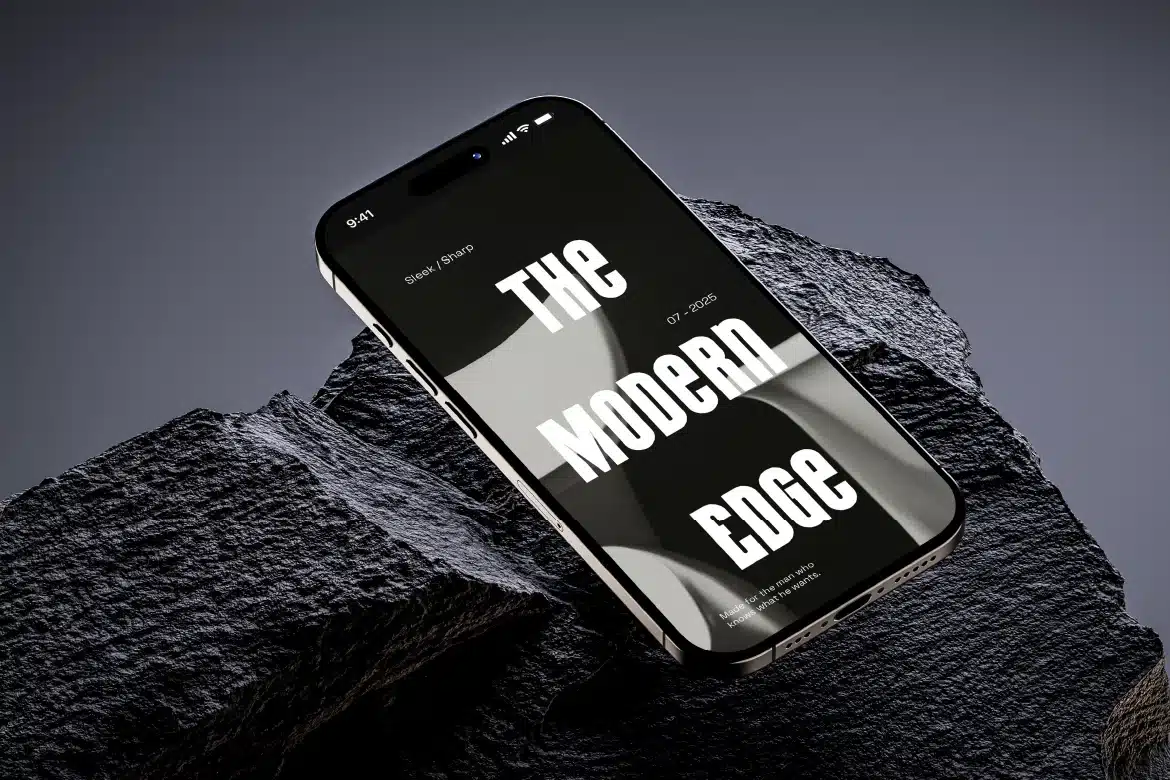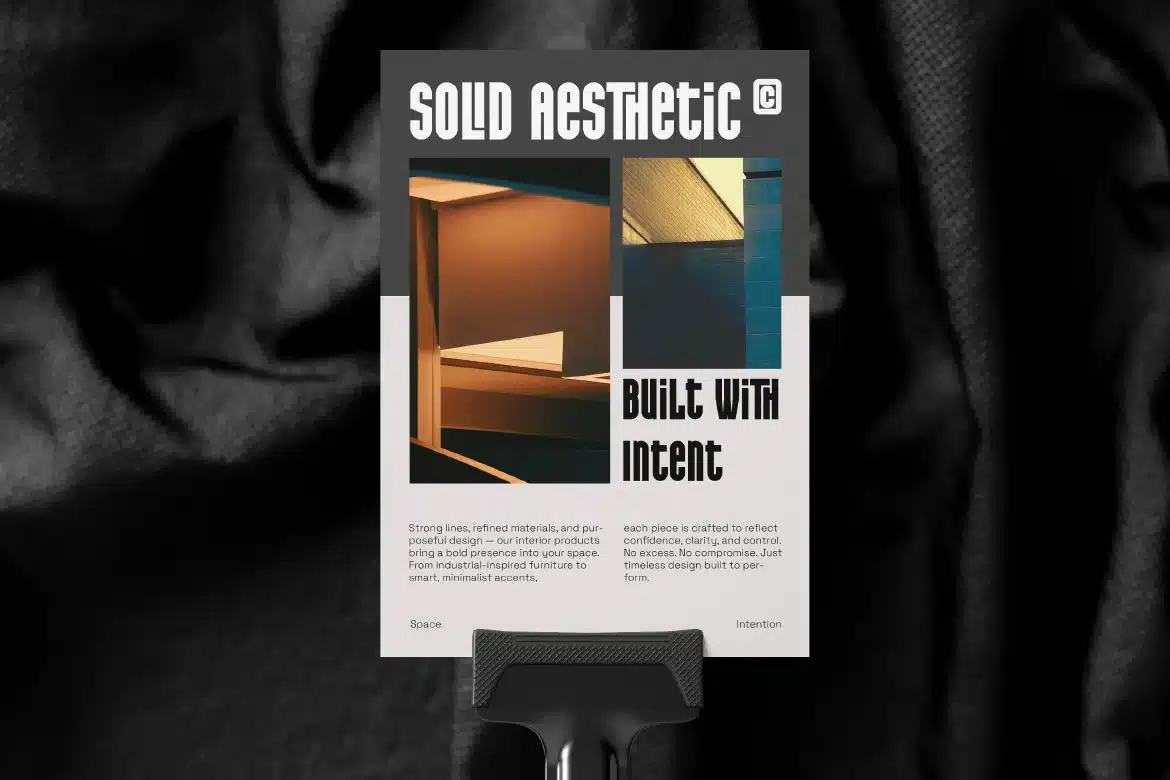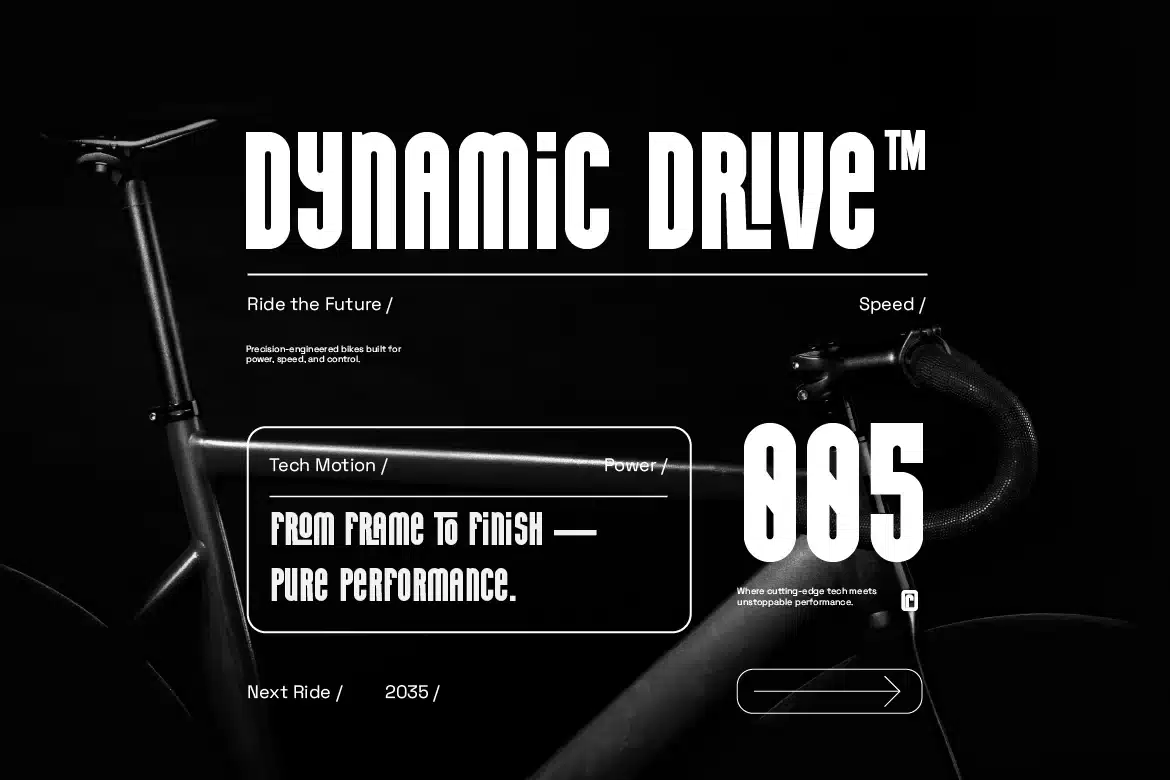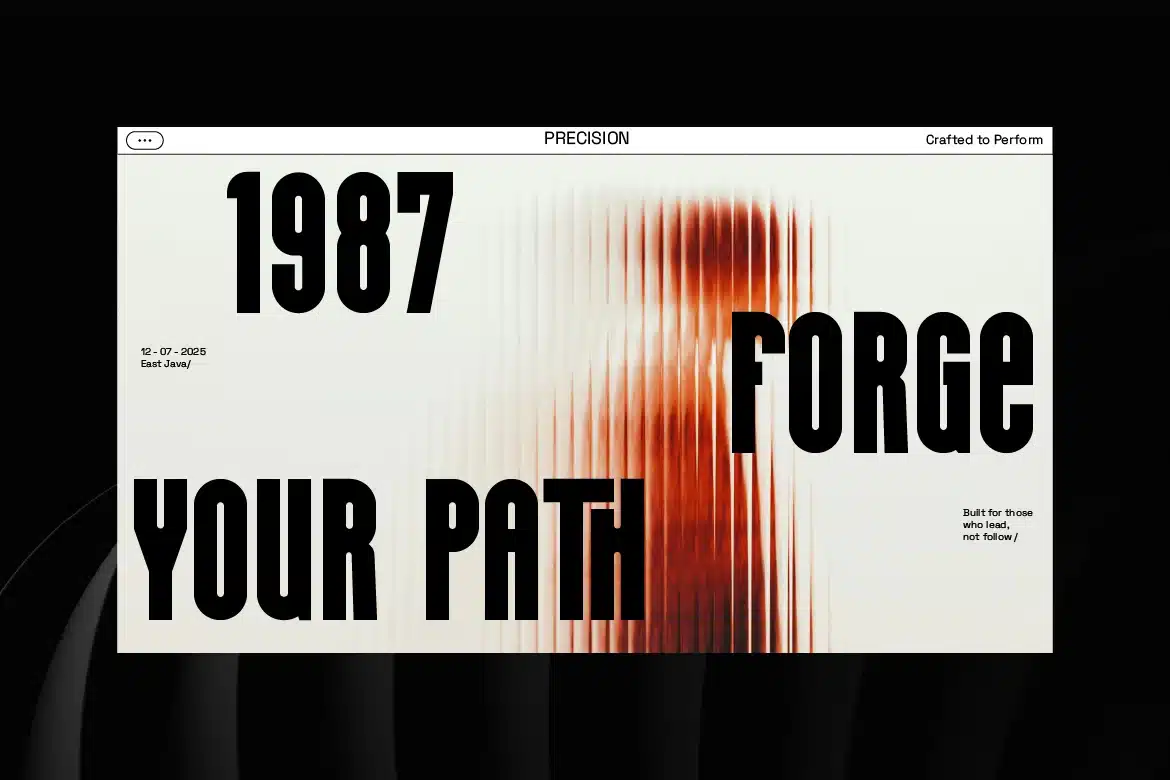
Agiroe Sans Serif Condensed Font
This font collection showcases a bold condensed sans serif style with a futuristic and high-impact appearance. Its elongated proportions, geometric forms, and dynamic contrast evoke a sense of tech innovation, speed, and modern power. The typography is particularly well-suited for automotive branding, technology interfaces, editorial layouts, esports visuals, and sci-fi titles. With its monochrome and high-contrast presentation, this font style emphasizes clarity, edge, and visual dominance.